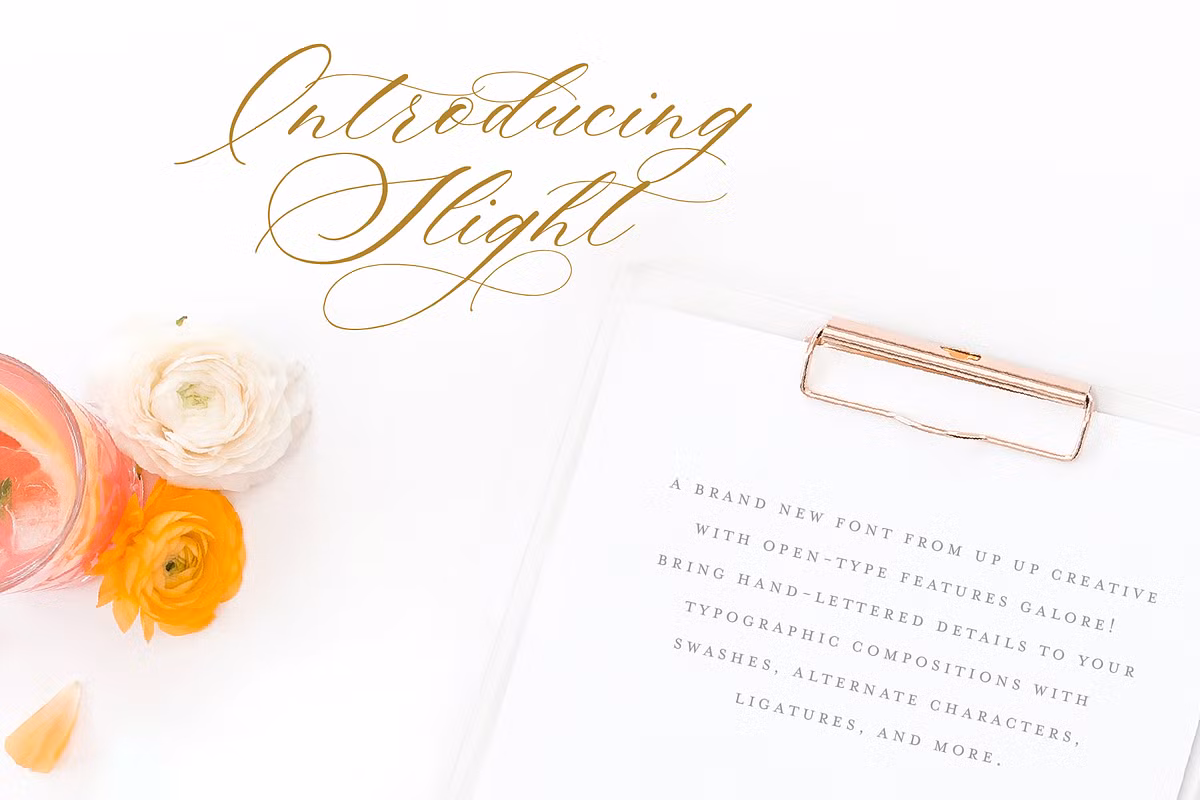
Slight, A Calligraphy Font
Slight: Elegant Calligraphy Font with Extensive OpenType Features
Introducing Slight: The Elegant Calligraphy Font
Slight is more than just a font – it’s a beautifully written script that looks great and has lots of features. It’s perfect for lots of different design projects, like invitations, branding, and editorial work. The way it slants to the right makes it look fancy and charming, which is why designers love using it to make their work stand out.
Whether you’re working on a special project or just want to add some elegance to your design, Slight is a great choice. Its unique style and features make it a great option for anyone looking to create something beautiful and eye-catching. With its sophisticated look and feel, Slight is sure to elevate any design project and make it look professional and polished.
Example of Slight calligraphy font in use
Slight font showcased in design projects
Design Style of Slight
The way Slight is designed is really beautiful, with smooth curves and flowing lines that remind you of old-fashioned calligraphy. The people who made the font were very careful to make sure it has a strong lean to the right, which makes it look energetic and fun. This special touch doesn’t just make it look nice, it also gives the text a unique personality.
When you use Slight, it adds a bit of flair to whatever you’re writing, making it stand out in a good way. The curves and lines all work together to create a sense of movement and style, which is perfect for adding some visual interest to your words. Overall, the design of Slight is a great example of how a font can be both beautiful and functional at the same time.
With more than 1000 glyphs, Slight captures the essence of hand-lettered artistry while providing the versatility required for modern design. The font includes a range of stylistic alternates and ligatures, allowing designers to create unique compositions that stand out.
Slight font showing various glyphs and styles
Overview of Slight’s diverse glyphs and styles
Slight is packed with an impressive array of features that make it a powerful tool for design professionals. The OpenType capabilities of this font ensure that you have access to a wide range of alternate characters and ligatures, all included within a single font file.
Some of the key OpenType features of Slight include:
• Contextual Alternates: Automatically adjusts characters based on their placement in a word, enhancing the natural flow of text.
• Stylistic Alternates: Provides multiple options for many letters, allowing for personalized design choices.
• Initial and Final Forms: Unique designs for the beginning and end of words to create visually appealing text.
• Ligatures: Combines certain letter pairs into a single glyph for a smoother and more cohesive look.
• Multilingual Support: Includes a variety of currency symbols and supports multiple languages.
• Multiple Ampersand Styles: Six distinct designs for the ampersand symbol, offering versatility in typography.
• Ascending and Descending Letter Variants: Fun options for letters that extend above or below the baseline, perfect for creative layout adjustments.
• Invitations: Slight’s elegant style is perfect for wedding, event, and party invitations, adding a touch of sophistication that sets the tone.
• Branding: Use Slight for logos, business cards, and other branding materials to create a memorable and stylish identity.
• Editorial Design: Whether you’re designing magazine covers, articles, or book covers, Slight can add a refined touch to your layouts.
• Social Media Graphics: Create eye-catching graphics and posts that stand out in a crowded feed with Slight’s unique letterforms.
• Print Materials: From brochures to flyers, Slight can enhance any print material with its distinctive, hand-crafted look.
To maximize the effectiveness of Slight in your designs, pairing it with complementary fonts is essential. Here are some pairing suggestions:
• Sans Serif Fonts: Pair Slight with a clean sans serif font like Montserrat or Helvetica for a modern and balanced look.